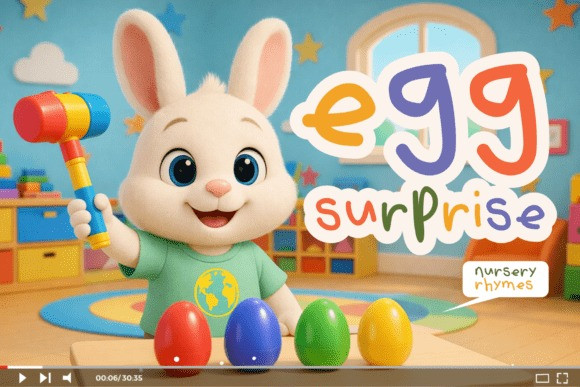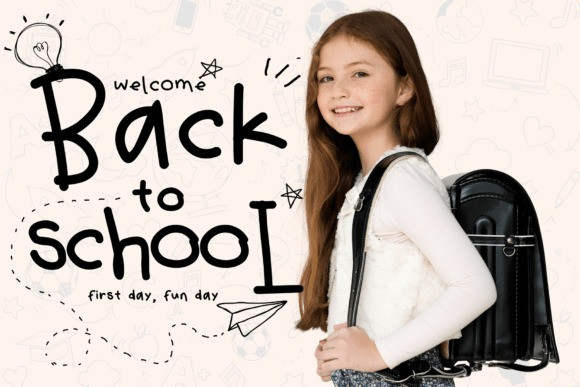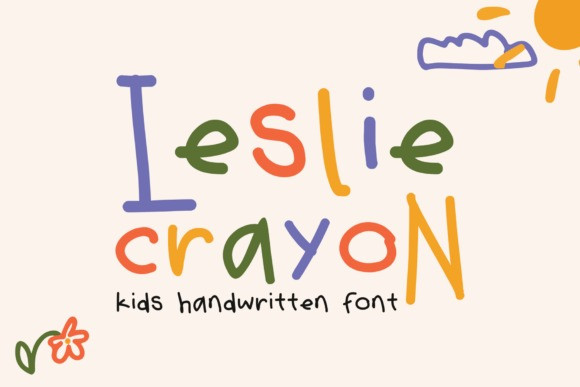
Leslie Crayon Font
Leslie Crayon Font a nostalgic display typeface that captures a “youthful-and-yearning” soul. This font features charming, hand-drawn letterforms characterized by the rhythmic, waxy texture of a real crayon stroke and soft, uneven terminals that evoke the pure joy of childhood creativity. With its light structural weight and innocent personality, Leslie Crayon is the premier choice for independent toy branding, children’s book illustrations, nursery decor prints, and high-impact “playful-and-primary” social media headers.